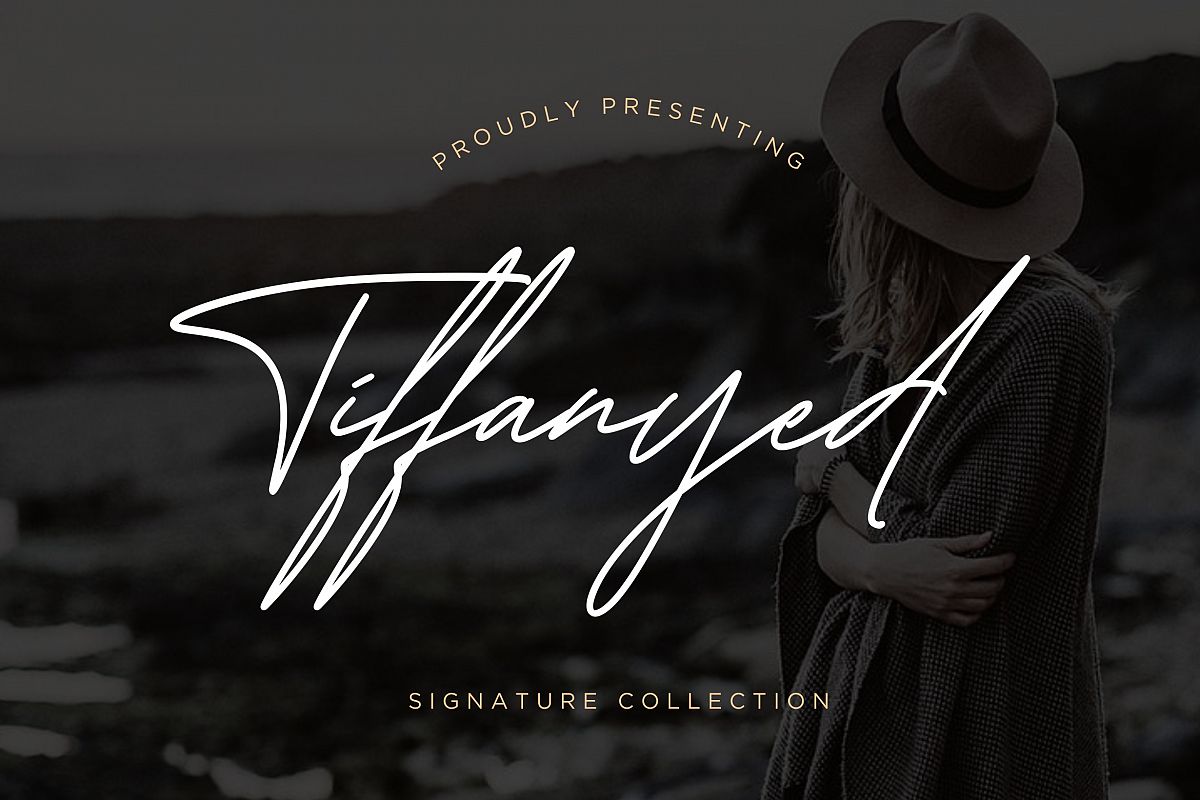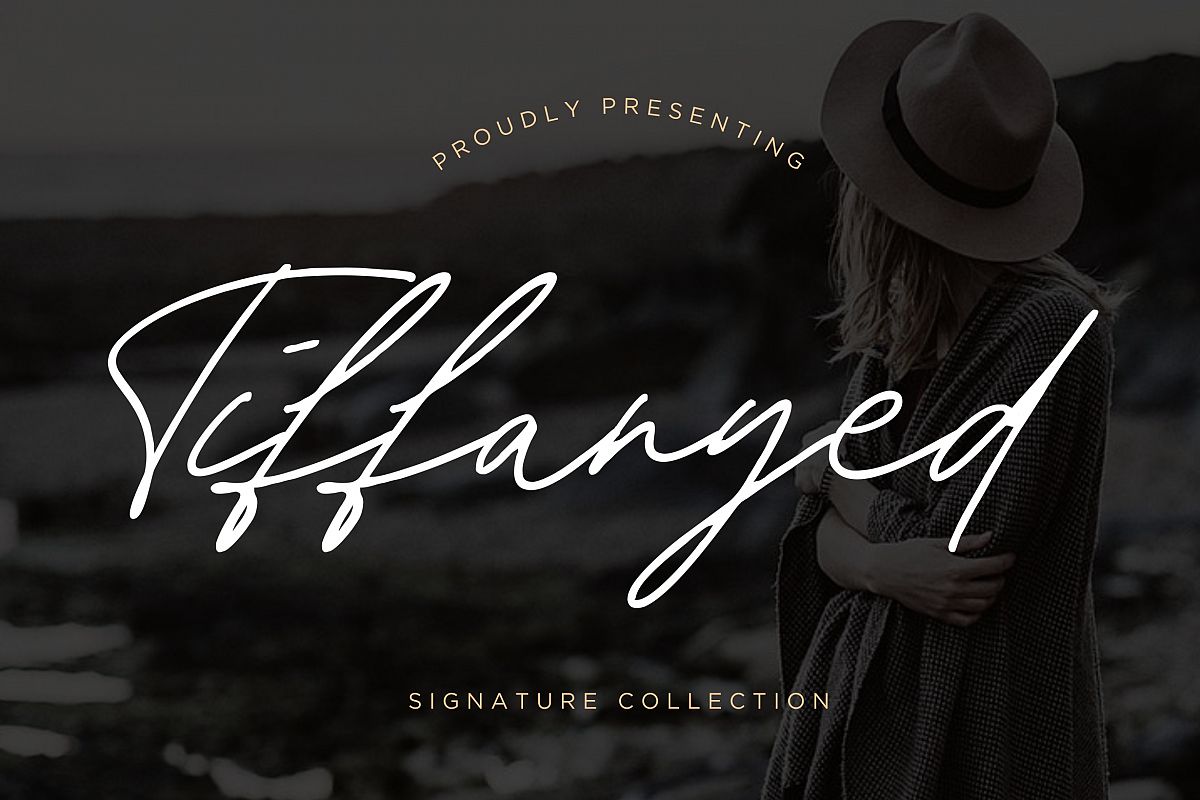
Tiffanyed Signature Collection
Tiffanyed
Tiffanyed is a handwritten stylish signature font, this collection series will make your project looks awesome.
Tiffanyed is perfect for branding projects, logo, wedding designs, social media posts, advertisements, product packaging, product designs, label, photography, watermark, invitation, stationery and any projects that need handwriting taste.
• Tons of glyphs